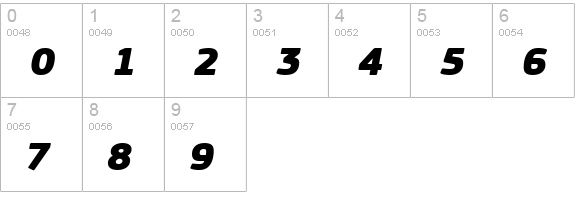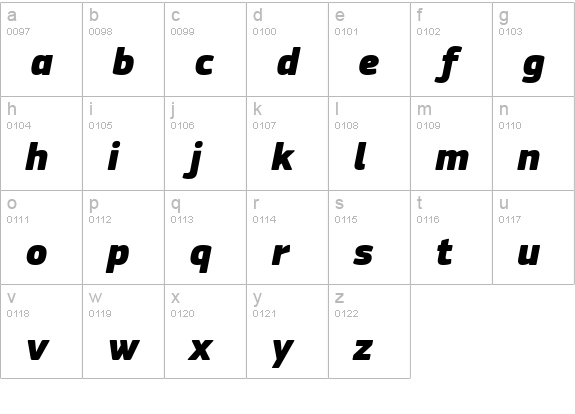
PFSquareSansPro-ExtraBlackItalic font is a bold and striking typeface that exudes strength and modernity. Its extra black weight combined with the elegant italic styling creates a powerful and dynamic presence on any design project. The sharp angles and clean lines of this font make it perfect for headlines, posters, and branding materials that demand attention. The best part? PFSquareSansPro-ExtraBlackItalic font is available for free download at FontsMarket.com. This means you can easily add this eye-catching typeface to your font collection without any cost. Whether you're a professional designer looking to make a statement or a hobbyist seeking creative inspiration, this font is a fantastic addition to your toolbox. Download PFSquareSansPro-ExtraBlackItalic today and elevate your designs with its bold and impactful aesthetic.